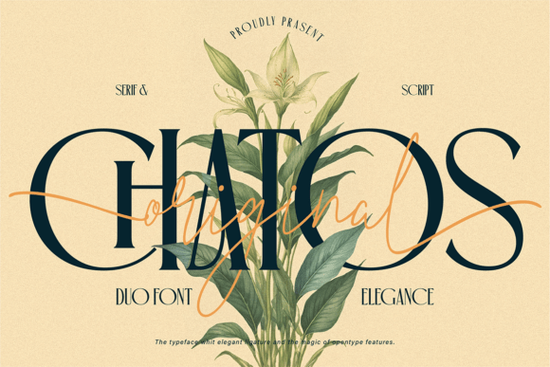
If you've been searching for a font pair that feels both polished and personal, Chatos Original is worth a close look. It's a refined duo font combining an elegant serif with a flowing handwritten script and the two styles are designed to work together seamlessly. Whether you're designing wedding invitations, building a brand identity, or creating social media graphics, this font gives you that balanced mix of classic and expressive.
What Makes Chatos Original Different From Other Duo Fonts?
Plenty of fonts come in pairs, but not all of them actually look like they belong together. Chatos Original solves that problem. The serif side features graceful curves and stylish alternates that work beautifully for headlines, logos, and editorial layouts. The script side adds a natural handwritten touch personal, expressive, and far from stiff.
What ties them together is the shared design language. Both styles carry a romantic, floral-inspired aesthetic that feels timeless without being dated. You can use each font on its own, or combine them for compositions that look like a professional typographer put them together.
Does It Include Ligatures and OpenType Features?
Yes. Chatos Original comes with ligatures and OpenType features, which means you get access to smooth, connected letterforms and stylistic alternates. If you're working in software like Adobe Illustrator, Photoshop, or Procreate, you can toggle these features to fine-tune your typography.
For designers who care about the small details a perfectly flowing "th" ligature, a decorative capital, or a natural connection between letters these features make a real difference. They help your text look handcrafted rather than typed out.
What Can You Use This Font For?
This font is versatile enough for a wide range of projects. Here are some of the most common uses:
- Wedding invitations and stationery The romantic script pairs perfectly with formal serif headers
- Branding and logo design Combine the serif for your brand name with the script for a tagline or accent
- Beauty, fashion, and floral designs The aesthetic fits naturally into these industries
- Product packaging Labels, boxes, and gift wrap all benefit from elegant type
- Social media graphics and quotes Stand out with text that doesn't look generic
- Editorial layouts Magazine spreads, blog headers, and lookbooks
If you sell print-on-demand products or run a small business, having a reliable serif and script font pair in your toolkit saves you time on every new project.
How Does It Compare to Other Serif and Script Fonts?
It depends on the vibe you're going for. If you want something with a bit more edge and boldness, fonts with a strong display personality might be a better fit. If you're after clean sophistication without the handwritten element, a classic elegant serif option could work well.
Chatos Original sits in a sweet spot between those two directions it's refined but not cold, expressive but not messy. That balance is what makes it popular for wedding and lifestyle branding.
Is Chatos Original Easy to Work With?
The OpenType features work best in programs that support them. If you're using basic tools like Canva, you'll still get the core font styles, but ligatures and alternates may not be accessible. For the full experience, use a design application with OpenType support.
Quick Checklist Before You Buy
Before you grab this font, here's a quick list to make sure it's the right fit:
- ✅ You need both a serif and a script font that work as a pair
- ✅ Your project has a romantic, elegant, or floral aesthetic
- ✅ You use software that supports OpenType features (for ligatures and alternates)
- ✅ You design invitations, branding materials, packaging, or editorial layouts
- ✅ You want a font that feels personal without looking unpolished
If most of those apply, Chatos Original is a solid choice that covers both sides of your typography needs in one download.